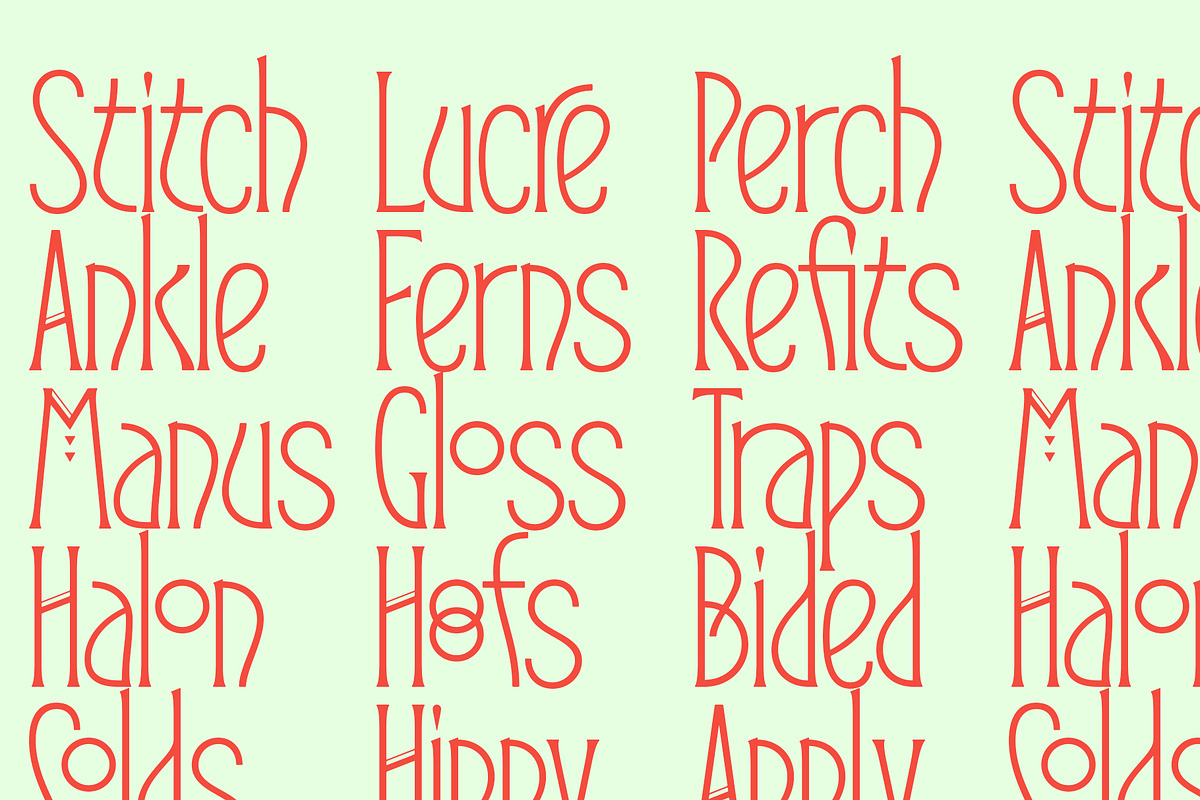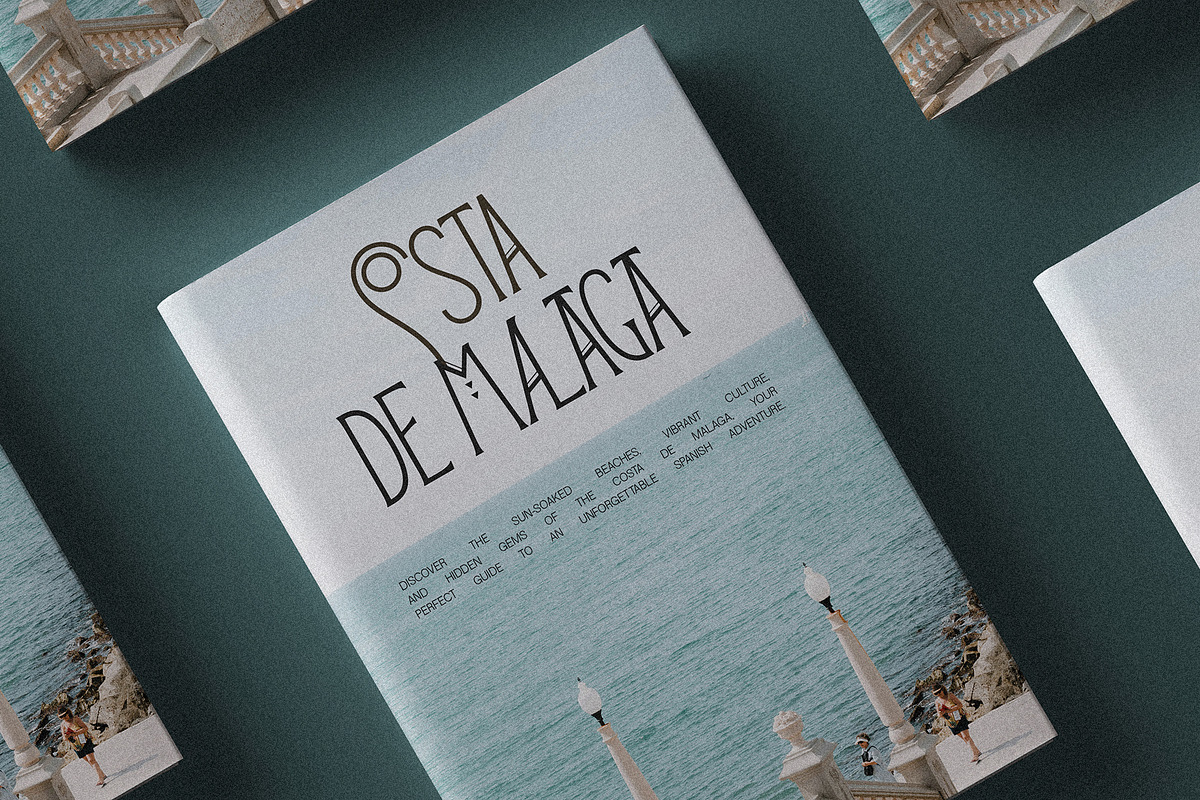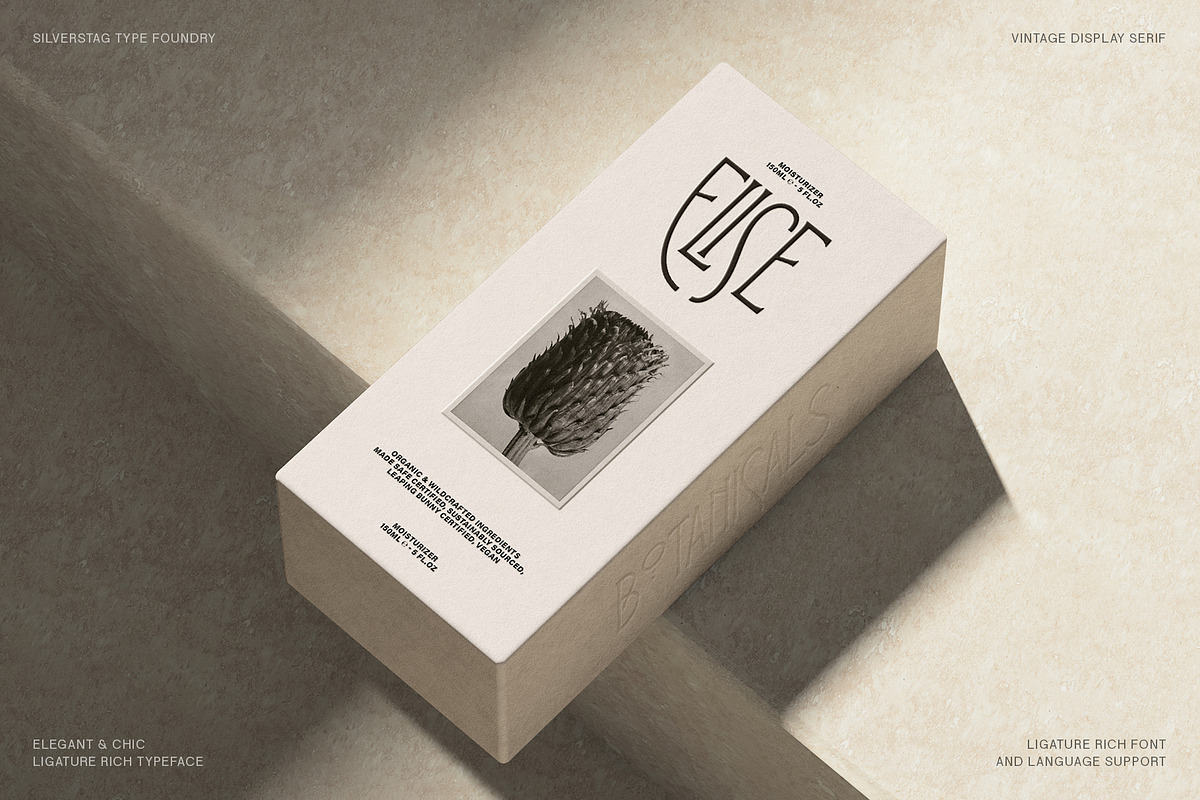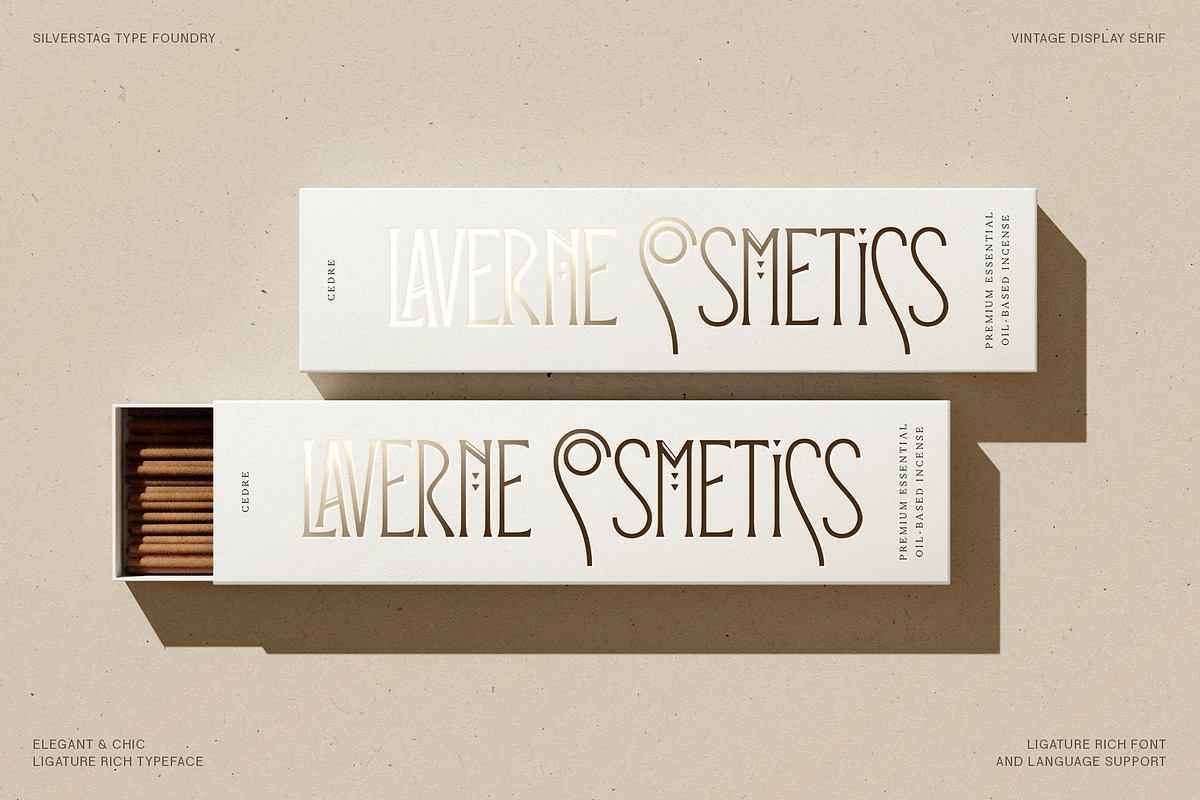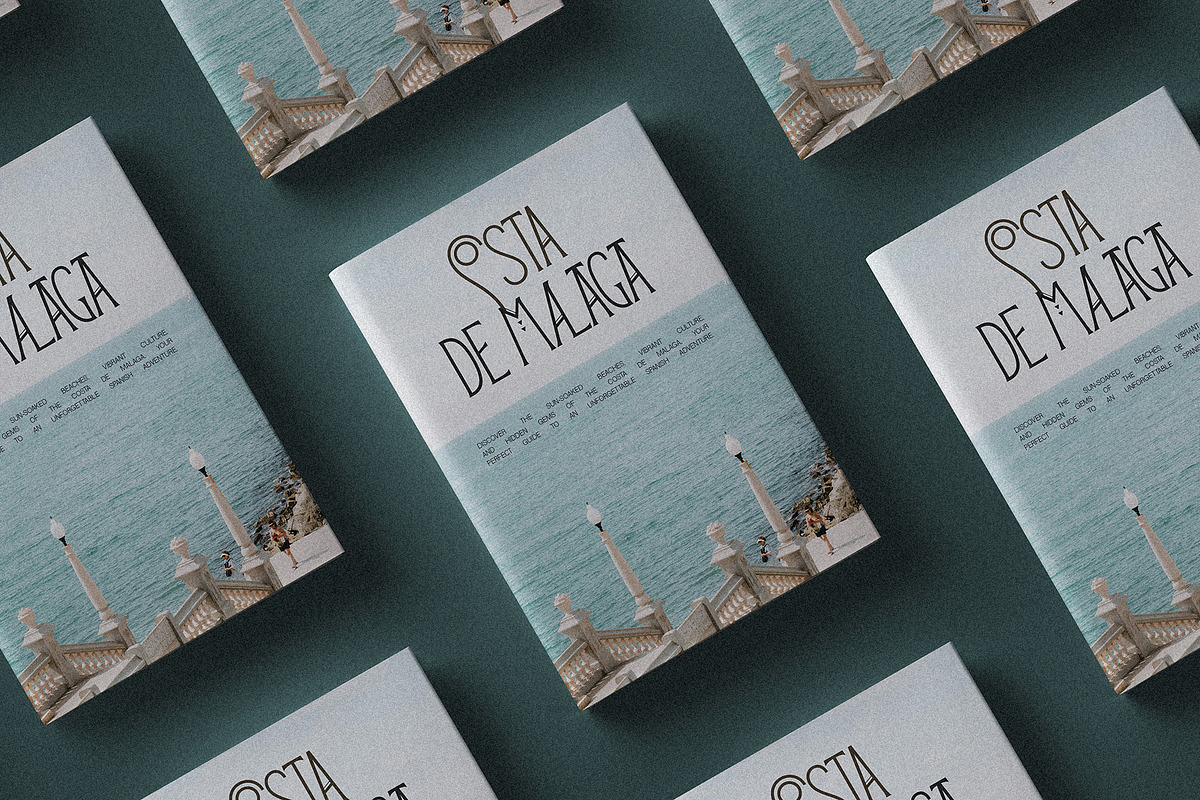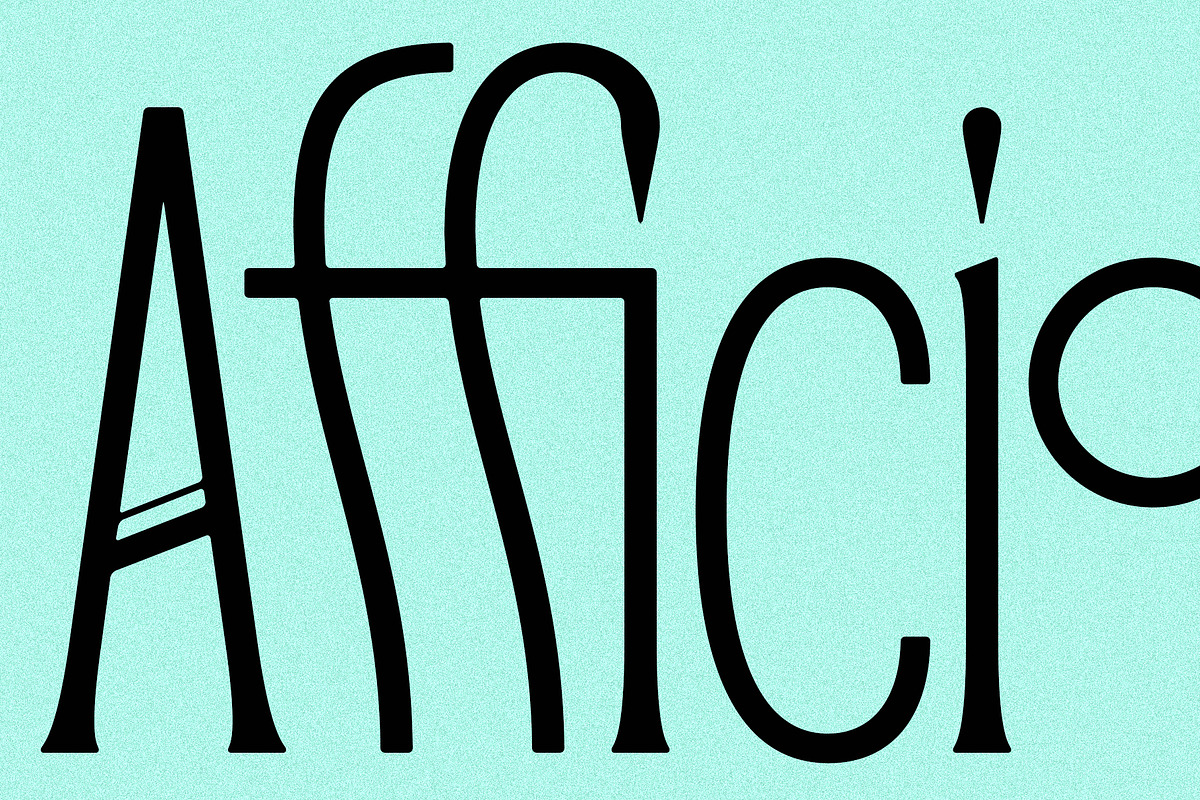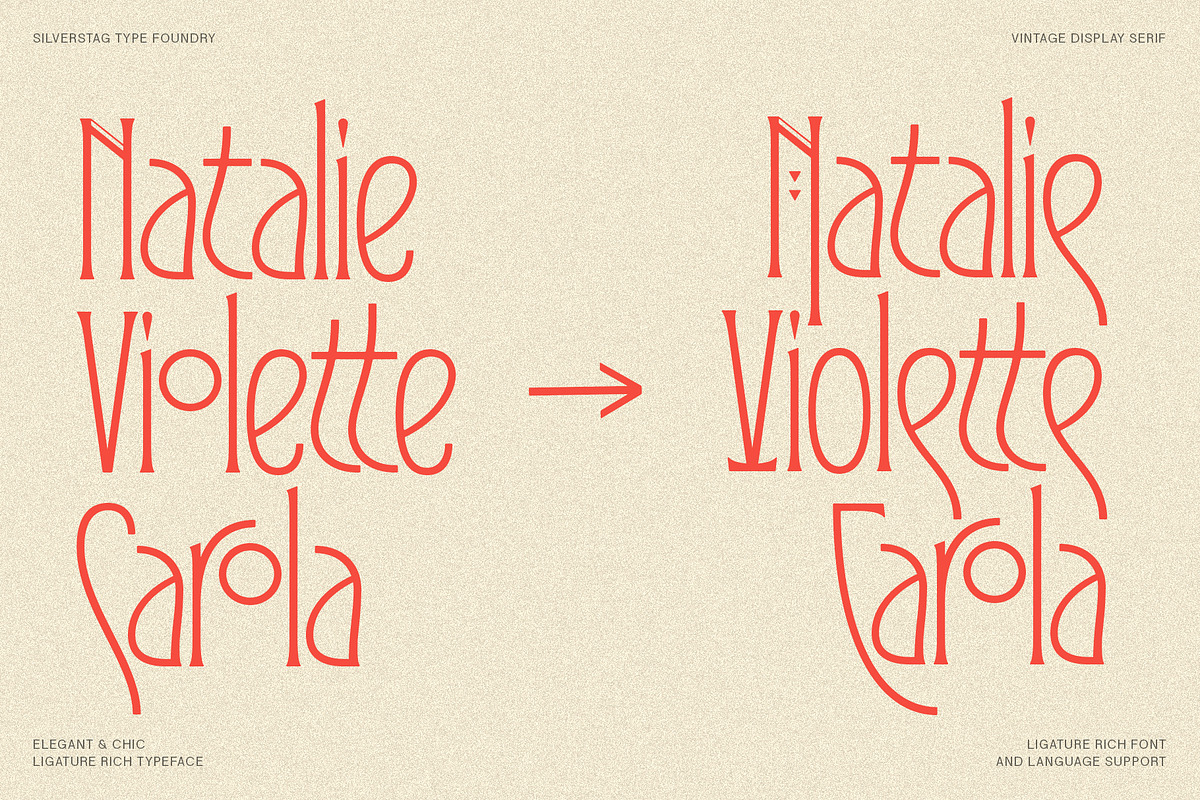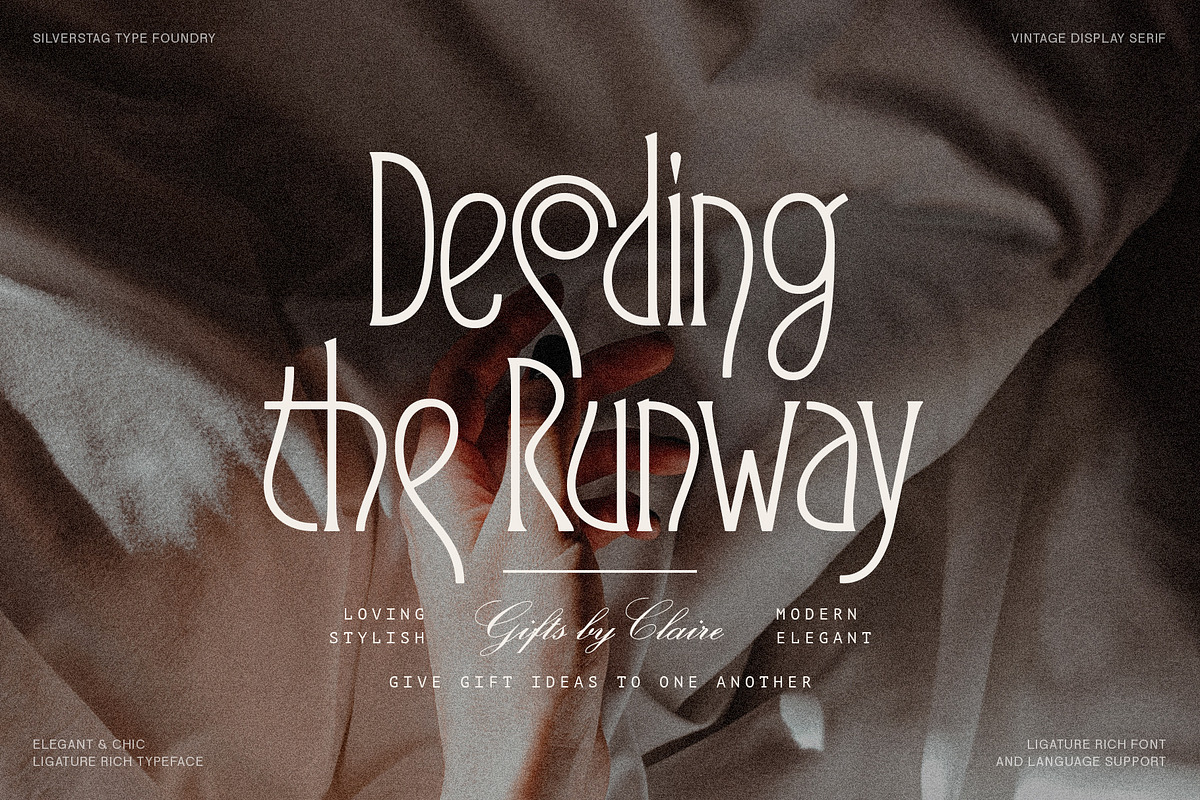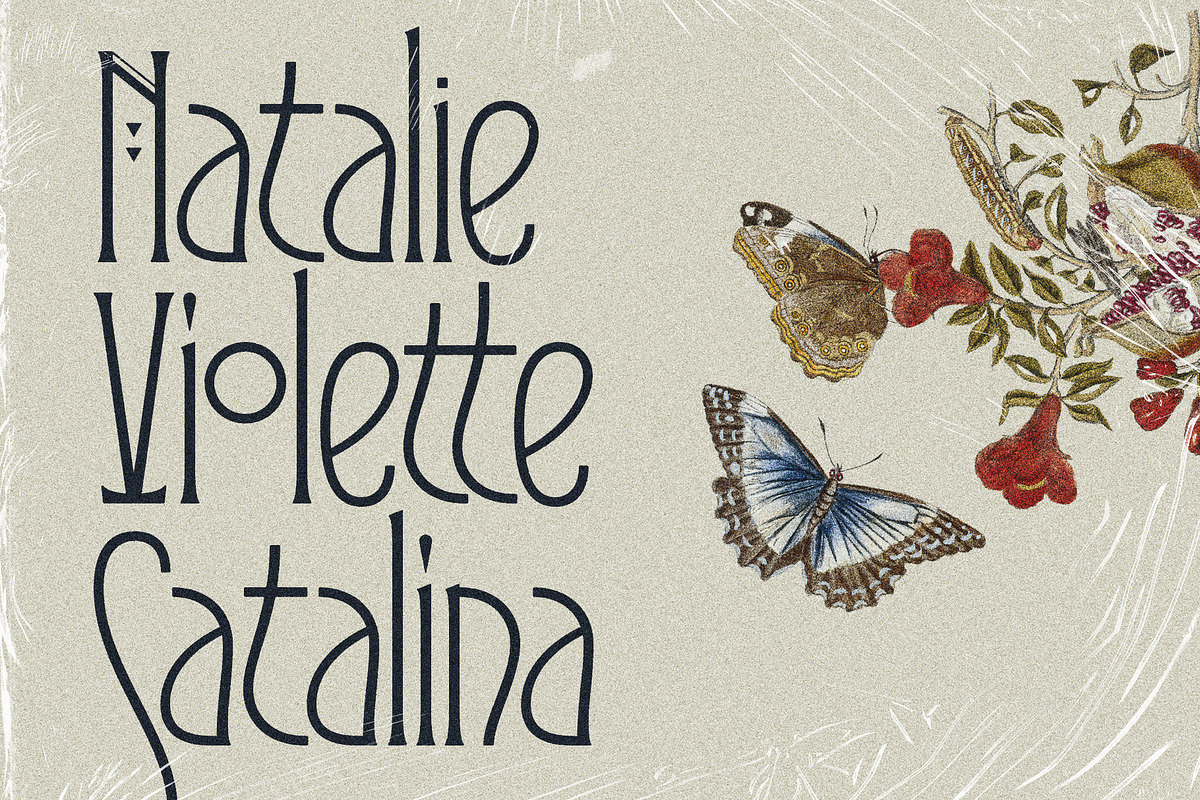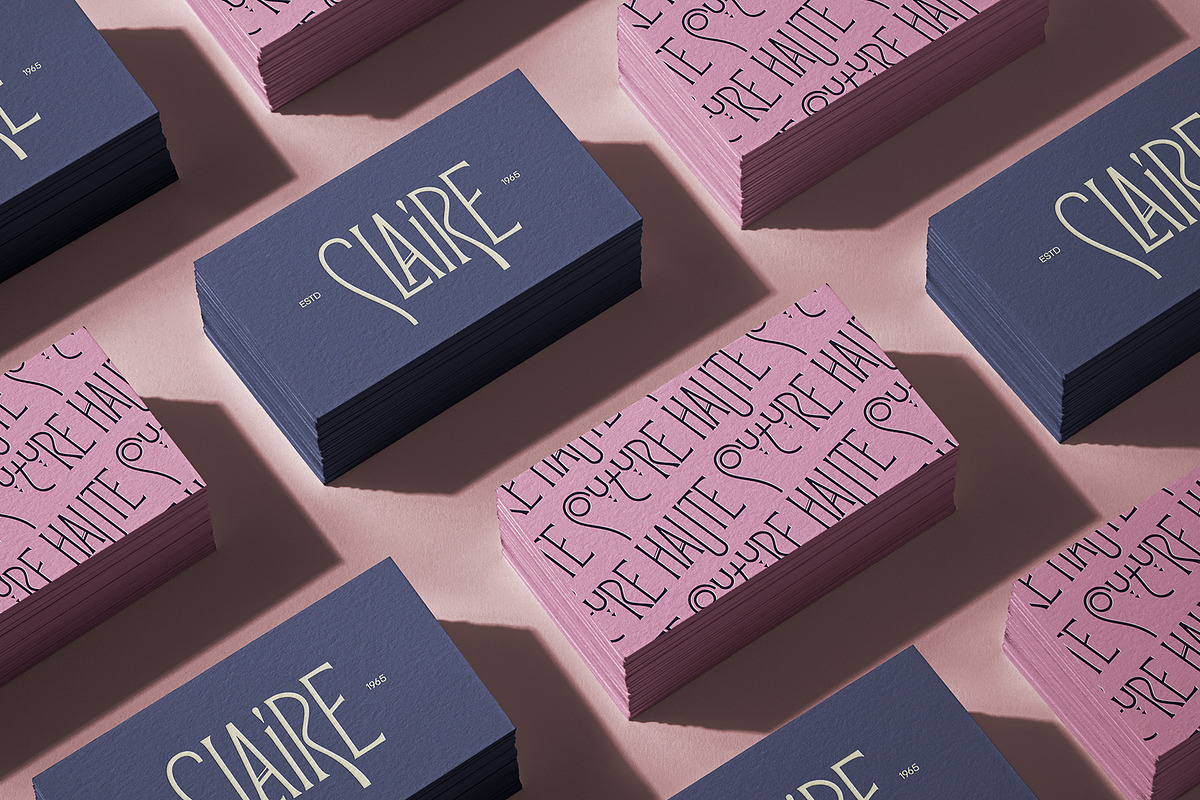
Reina Sofia - Vintage Display Serif
Immerse yourself in the elegance and artistry of Reina Sofía, a vintage-inspired typeface that pays homage to the grandeur of Madrid's iconic Reina Sofía Museum. Drawing inspiration from the museum's rich collection of Art Deco and Art Nouveau masterpieces, this font embodies a bygone era of sophistication and creative expression.
With over 150 meticulously crafted ligatures and alternate letters, Reina Sofía invites you to explore a world of typographic possibilities. Each character exudes the opulence and charm of early 20th-century design, while the intricate details and flowing lines capture the essence of artistic movements that shaped an era.
Unleash the versatility of Reina Sofía in:
- Elegant invitations and stationery: Add a touch of vintage allure to weddings, galas, and special occasions.
- Art Deco and Art Nouveau-inspired designs: Create posters, logos, and packaging that evoke the spirit of the early 20th century.
- Luxury branding and editorial layouts: Elevate your brand identity with a sophisticated and timeless typographic voice.
- Historical or period-themed projects: Transport your audience to another era with authentic and evocative typography.
- Creative headlines and display text: Make a bold statement with eye-catching and artistic lettering.
Whether you're designing a sophisticated invitation, crafting a vintage-inspired logo, or adding a touch of elegance to your latest project, Reina Sofía offers a versatile and captivating typographic voice. Let the spirit of Madrid's artistic heritage guide your creative journey as you infuse your designs with the timeless allure of Reina Sofía.